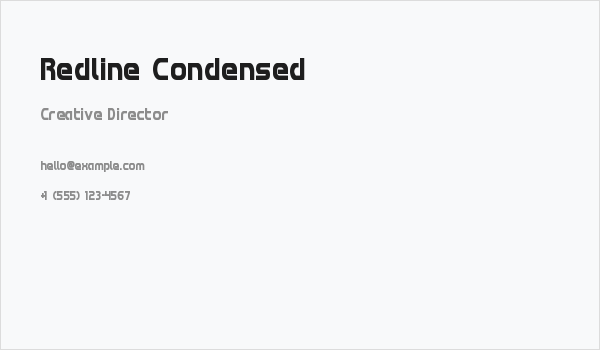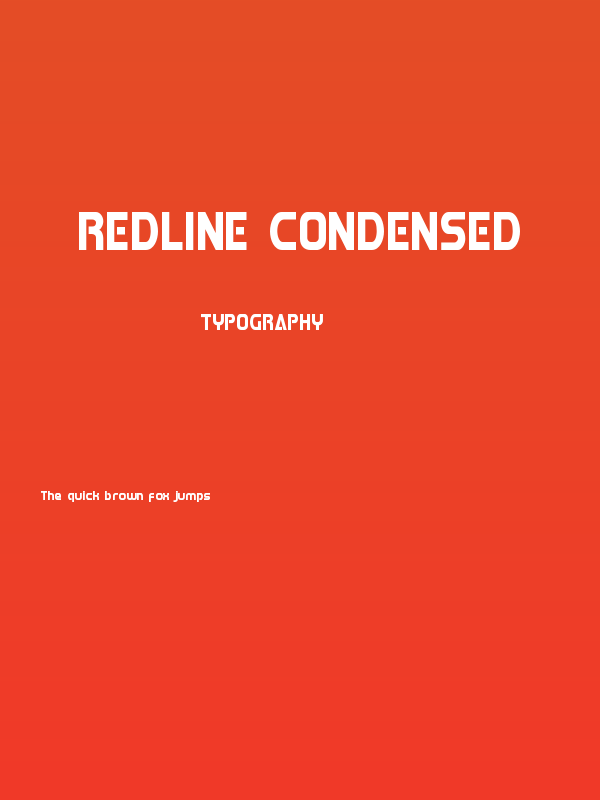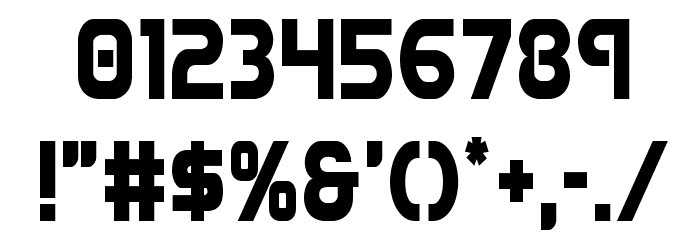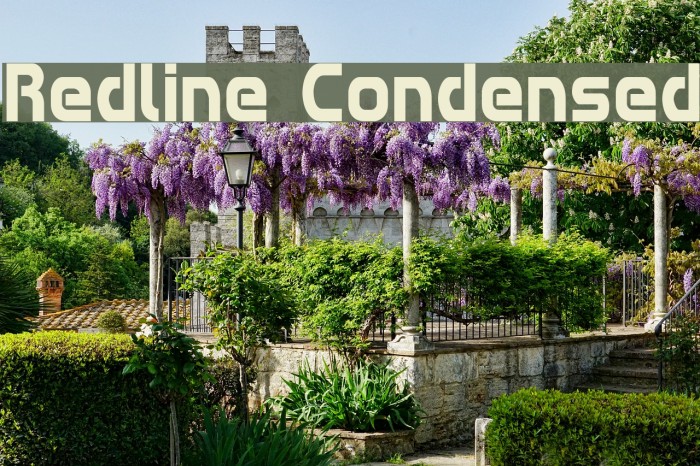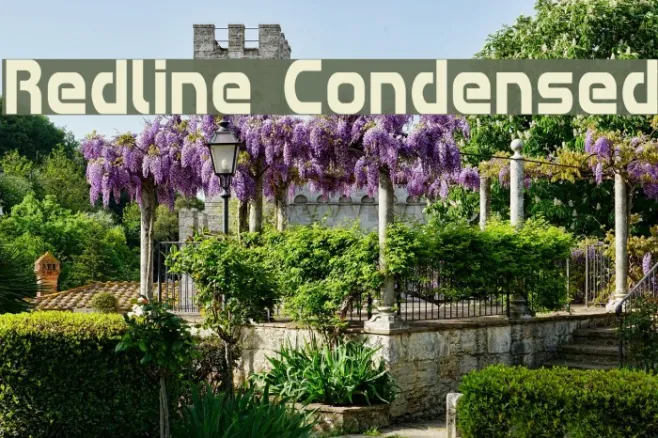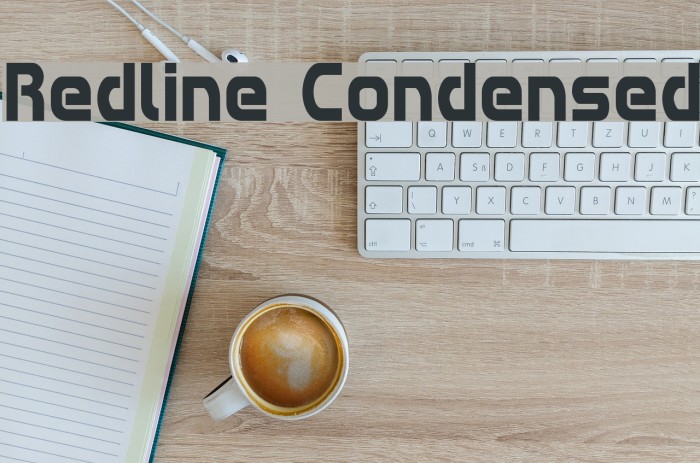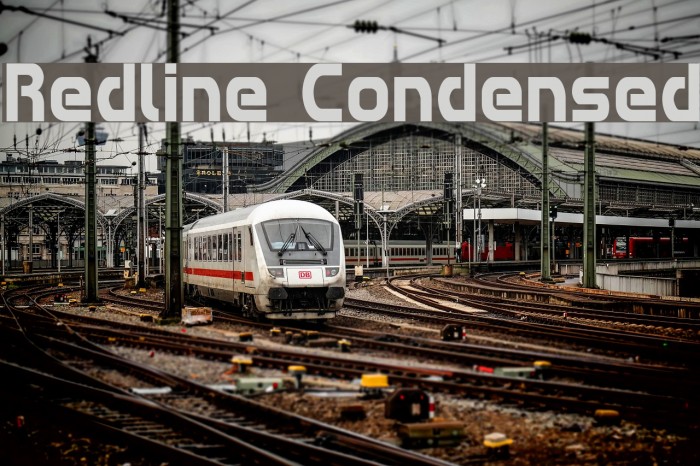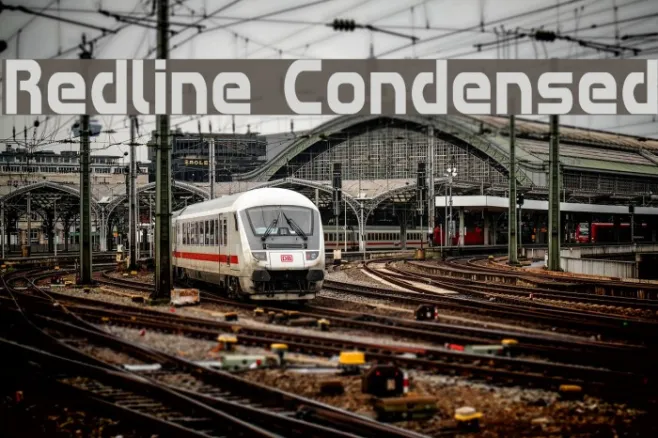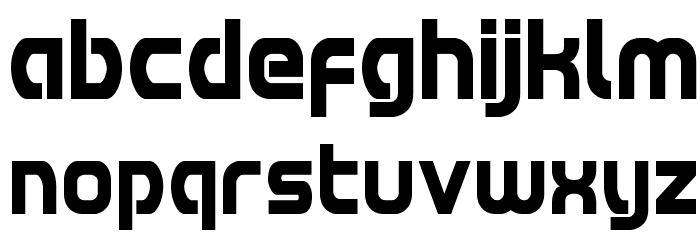
Redline Condensed Font
Redline Condensed Description
This font features a bold and geometric design with a condensed width, creating a strong visual impact. The characters are constructed with clean, straight lines and sharp angles, giving it a modern and futuristic appearance. The uppercase letters are uniform in height, while the lowercase letters maintain a consistent style, enhancing readability. The numerals and special characters follow the same design principles, ensuring a cohesive look across all text elements. The overall style is sleek and contemporary, making it suitable for a variety of design applications.
| Proposed Projects | Ideal for branding, headlines, posters, and digital interfaces where a strong, modern aesthetic is desired. |